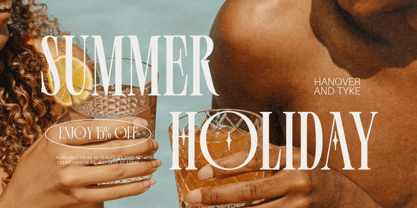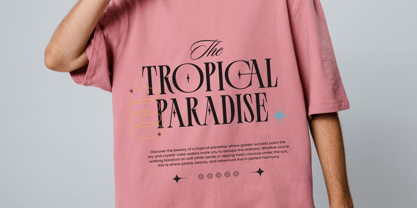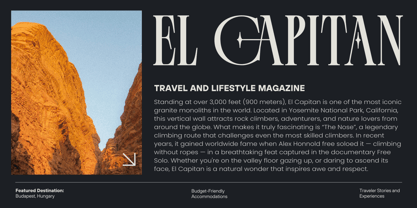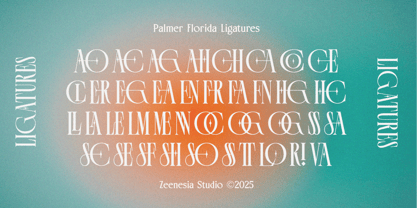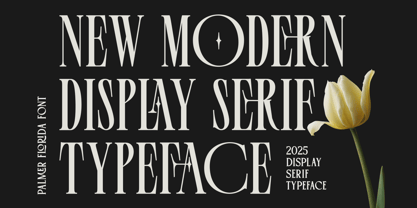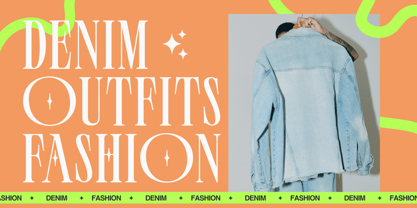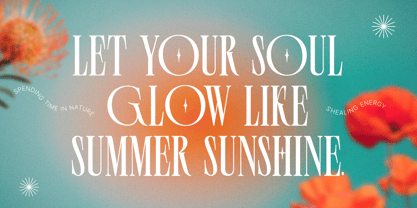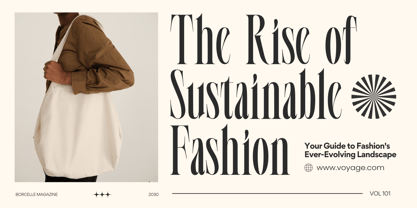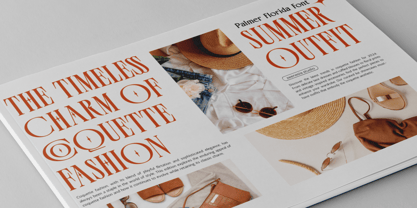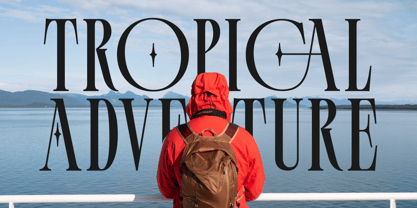
Palmer Florida
by Zeenesia Studio
The Palmer Florida Font Family was designed by Doni Purwoko and published by Zeenesia Studio. Palmer Florida contains 3 styles and family package options.
Palmer Florida is a bold and charming display serif typeface with a unique retro twist. Featuring high contrast strokes, elegant curves, and whimsical star-shaped details, this font brings a delightful blend of vintage flair and modern personality. Perfect for logos, posters, packaging, or editorial headlines, Palmer Florida stands out with its playful yet classy character. Whether you’re aiming for nostalgic vibes or a fresh, stylish look, this typeface adds a magical spark to your designs.
Designers: Doni Purwoko
Publisher: Zeenesia Studio
Foundry: Zeenesia Studio
Design Owner: Zeenesia Studio